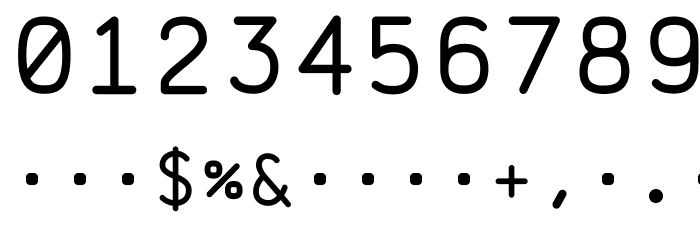
Brass Mono Comfortable Regular Font
Brass Mono Comfortable Regular Description
This font exhibits a clean and modern monospaced design, characterized by uniform character width and a minimalist aesthetic. The strokes are consistent in thickness, providing a balanced and harmonious appearance. The digits and special characters are clearly defined, making it suitable for technical and coding applications. The overall look is straightforward and uncluttered, ensuring readability and functionality. The font's simplicity and precision make it ideal for environments where clarity and consistency are paramount.
A clean, modern monospaced font with uniform character width and minimalist design from Uncategorized fonts.
- Proposed Projects: Ideal for coding environments, technical documentation, and data presentation where clarity and uniformity are essential.
- Use Case: Coding, Technical documentation, Data presentation